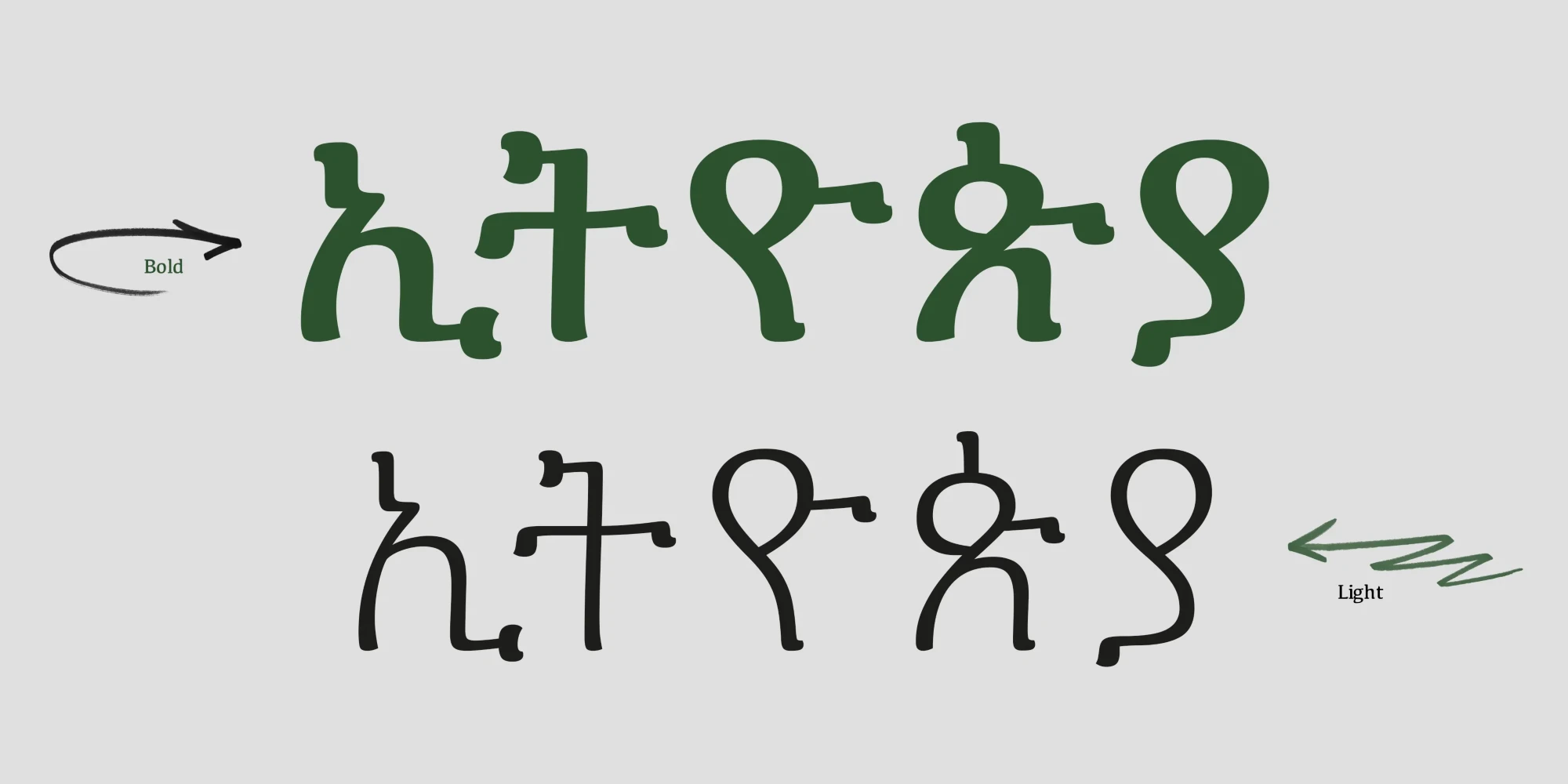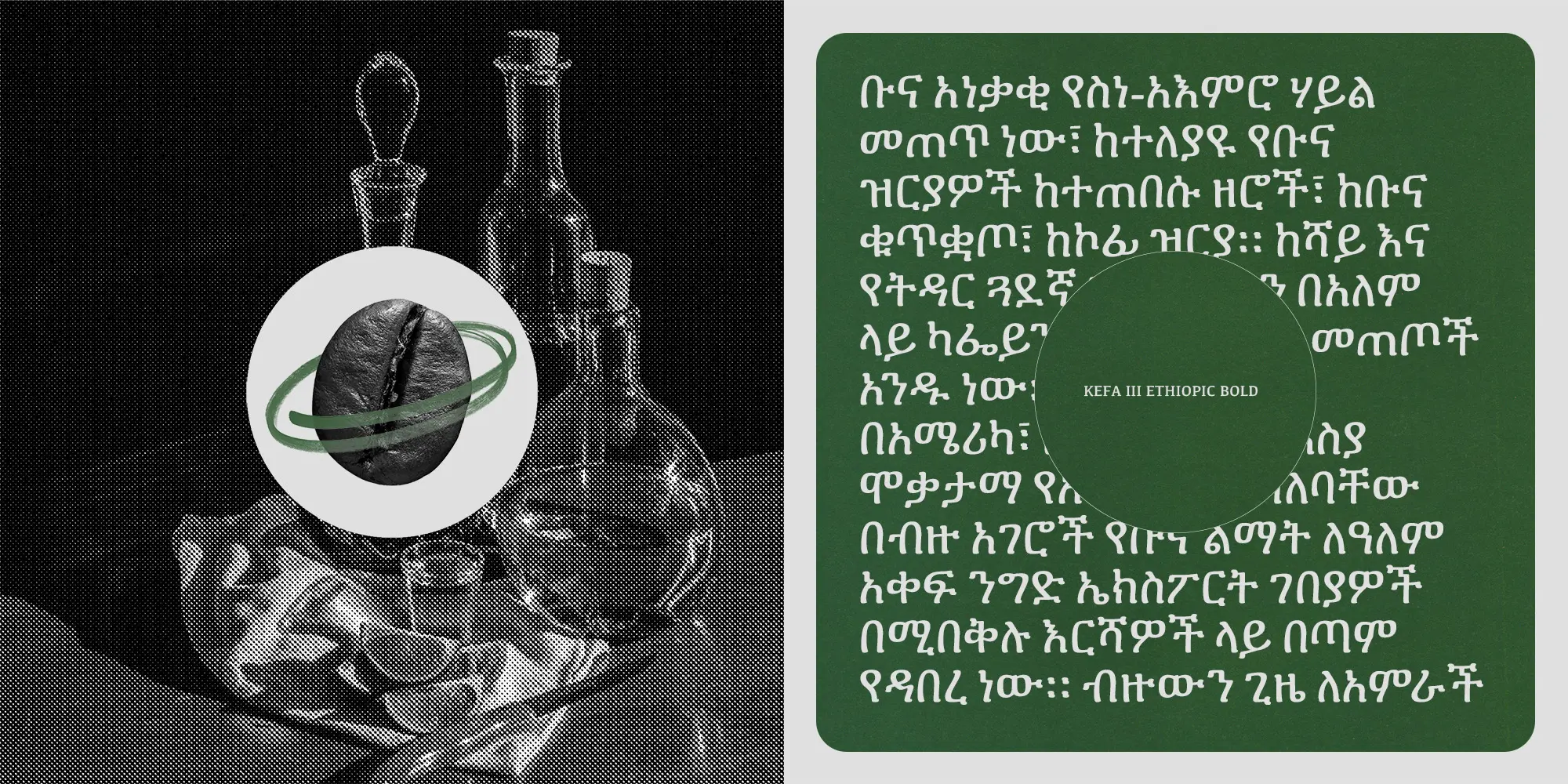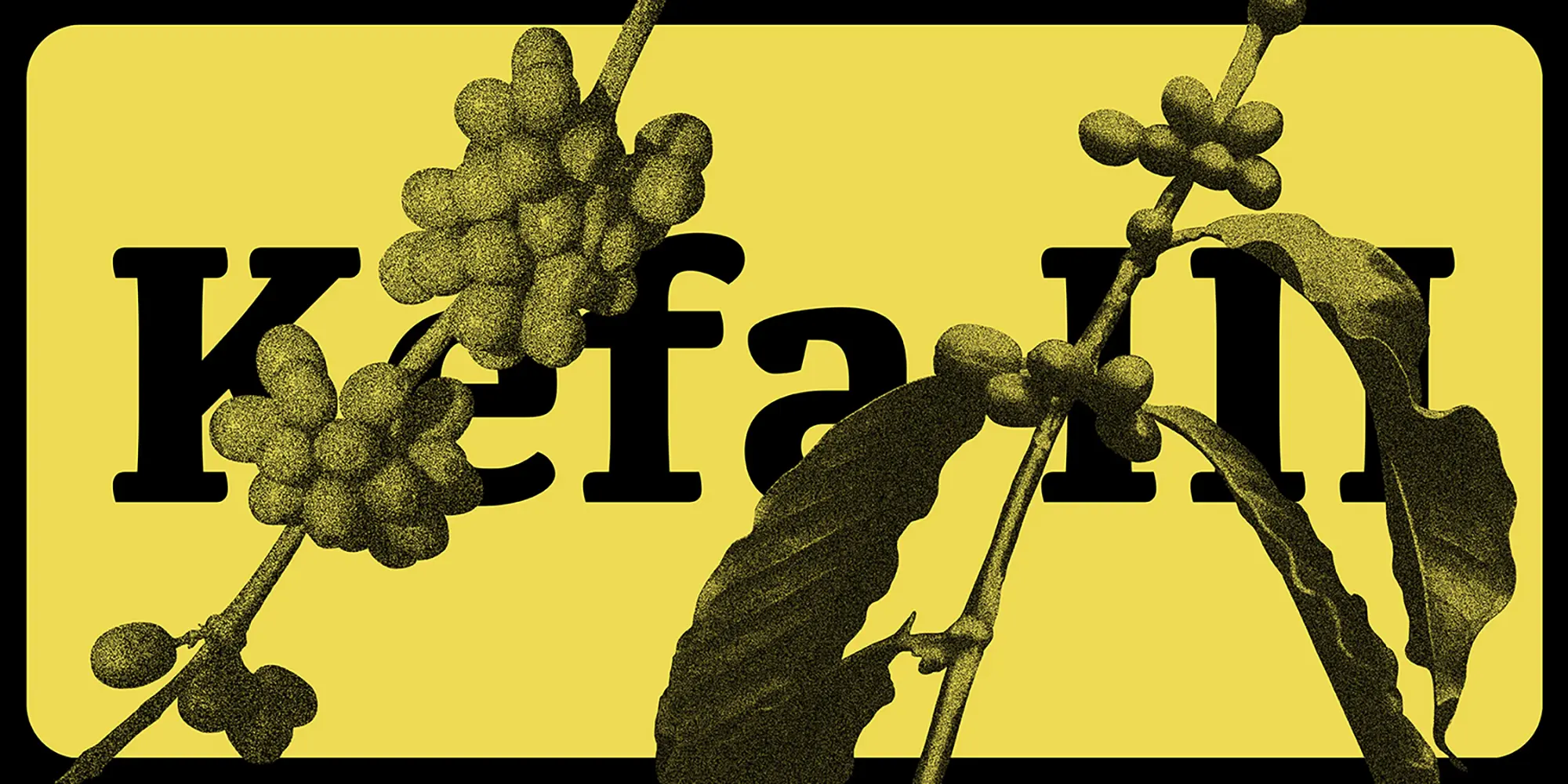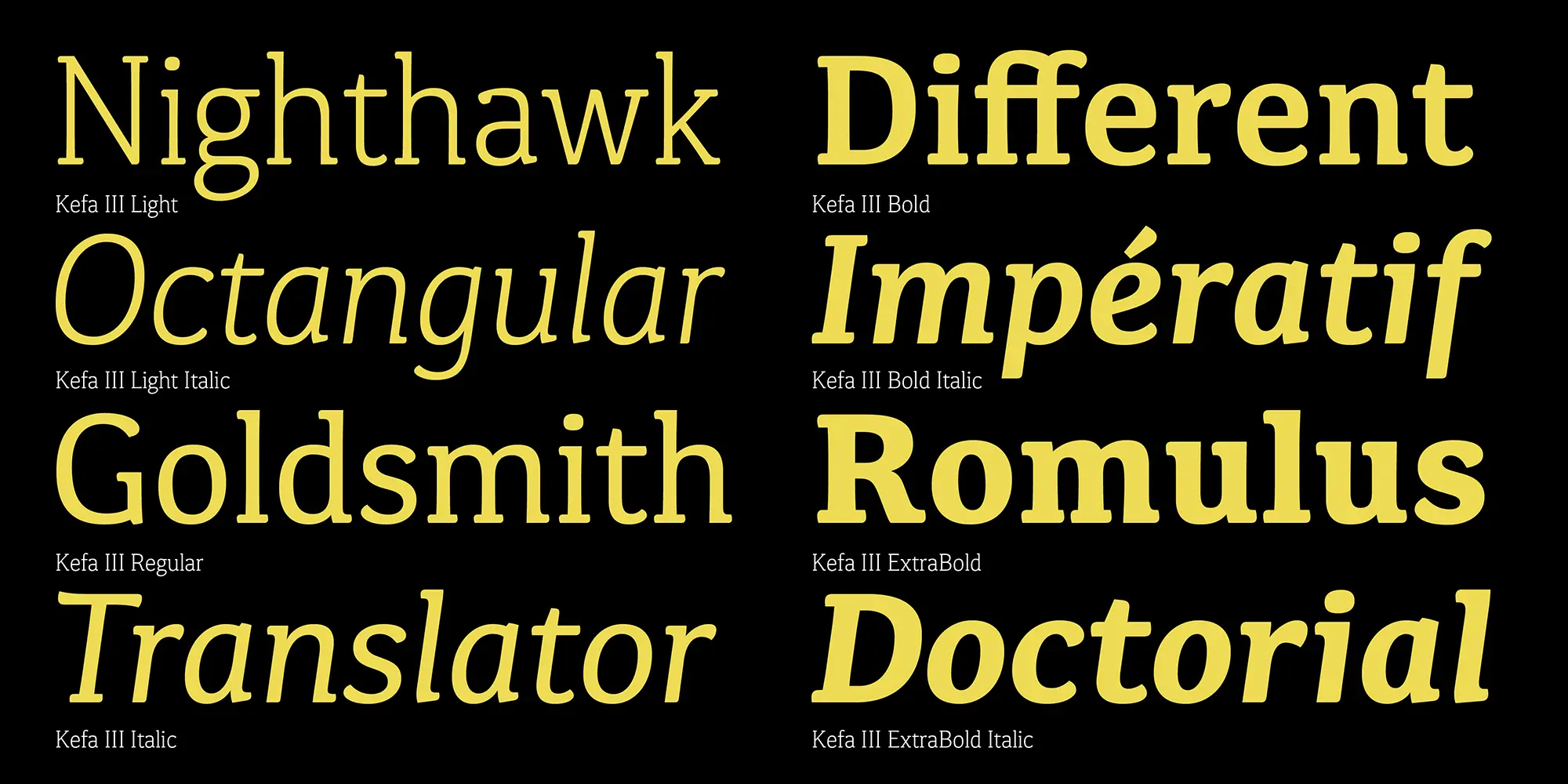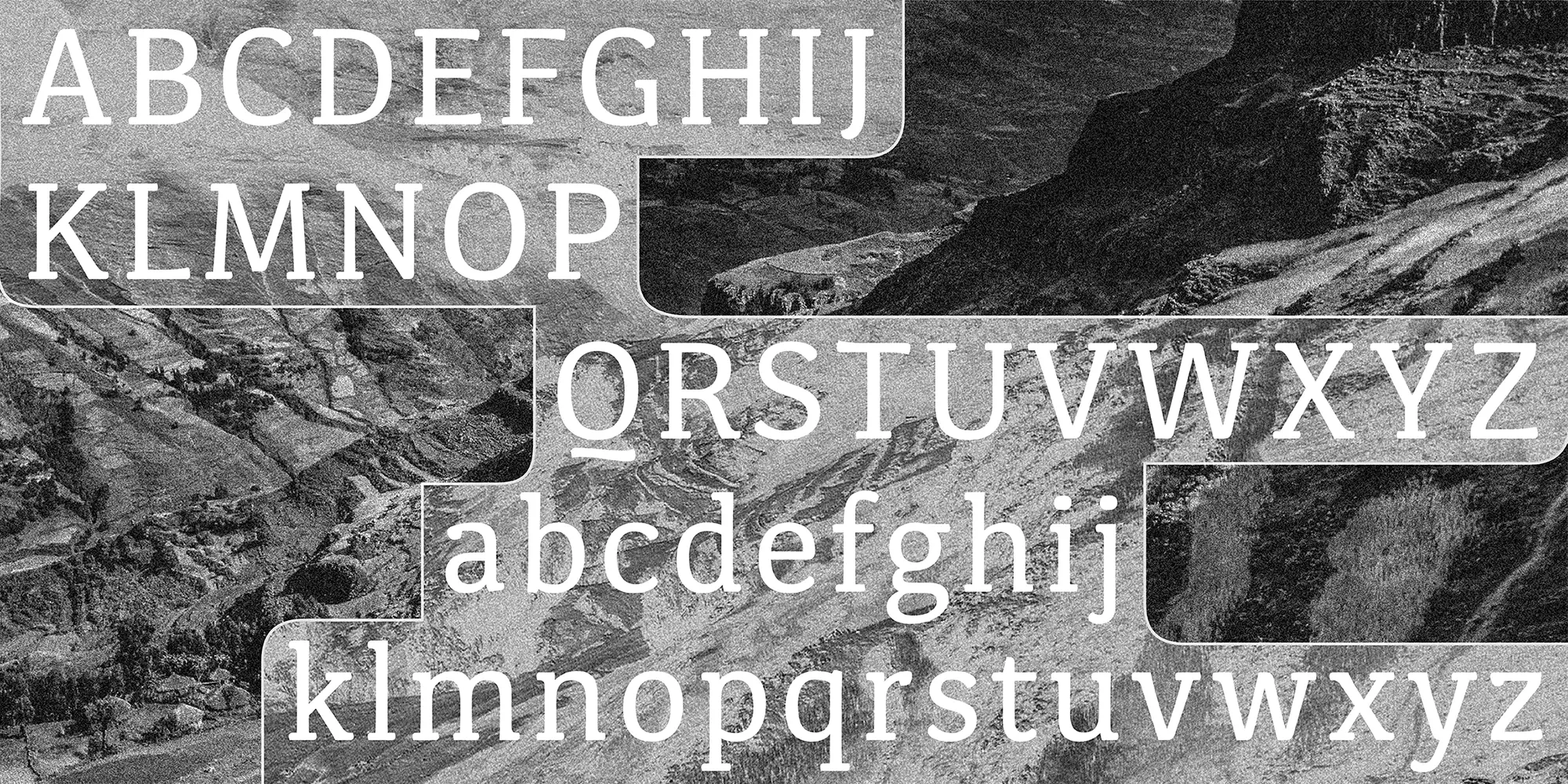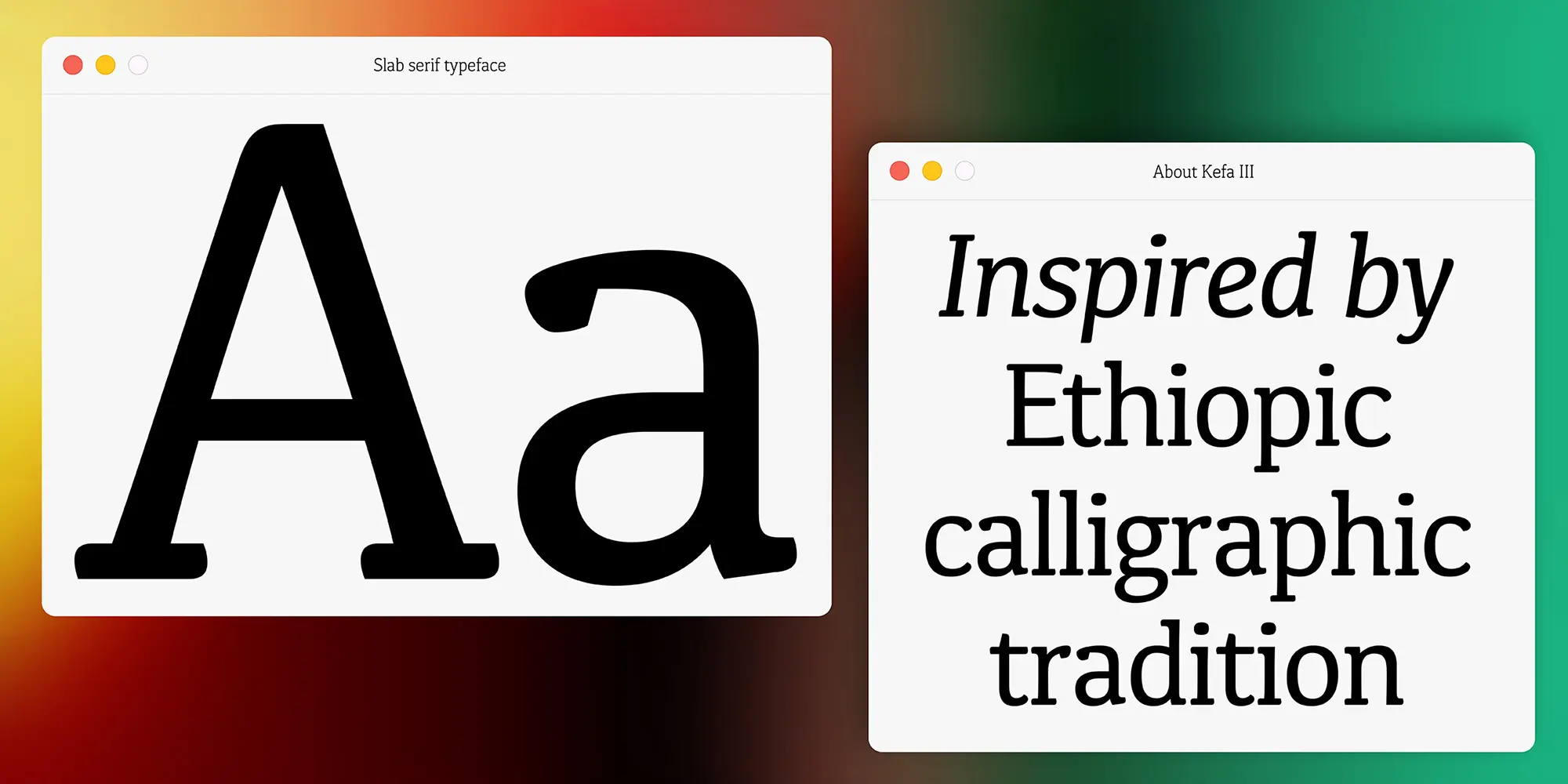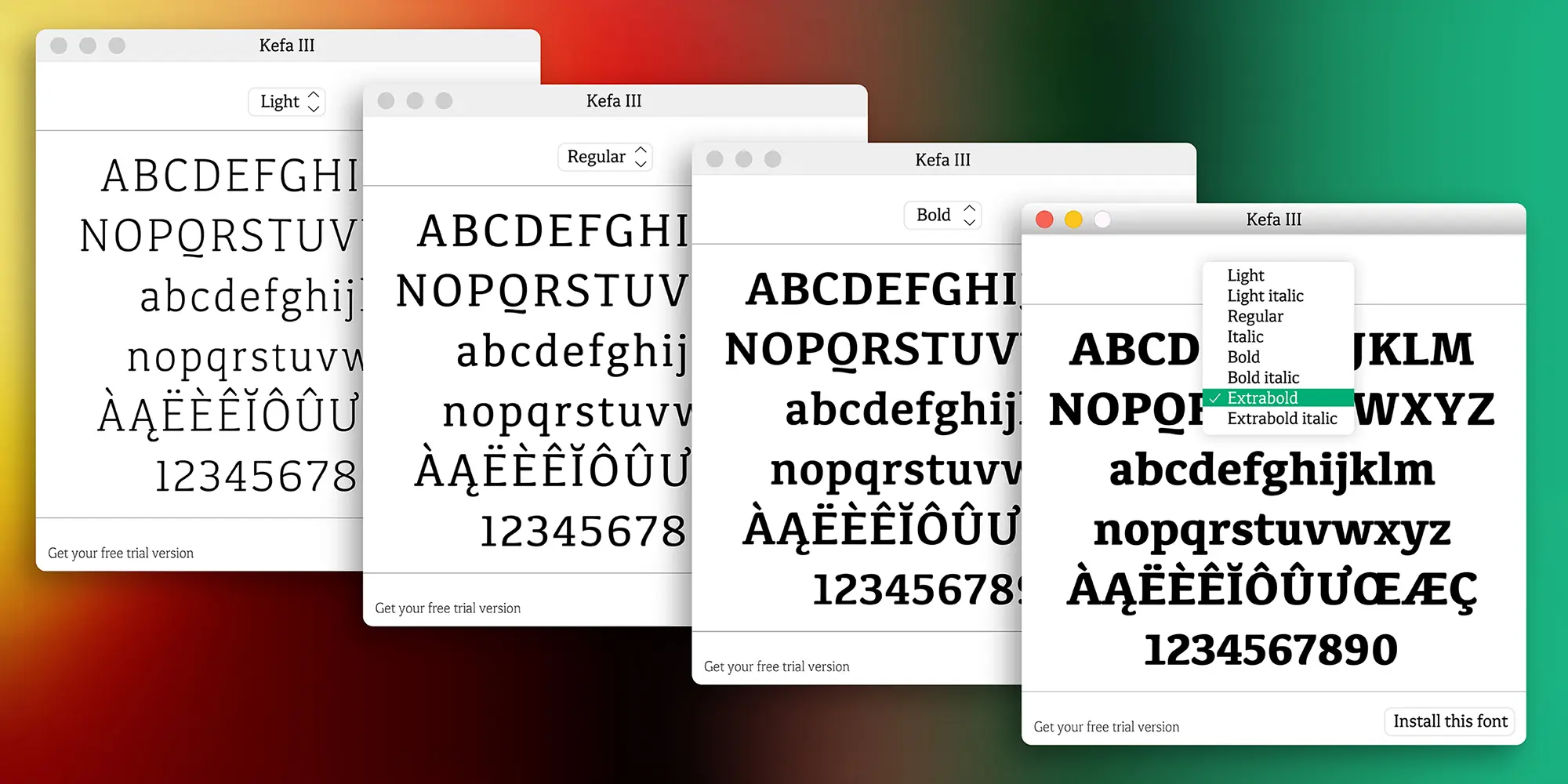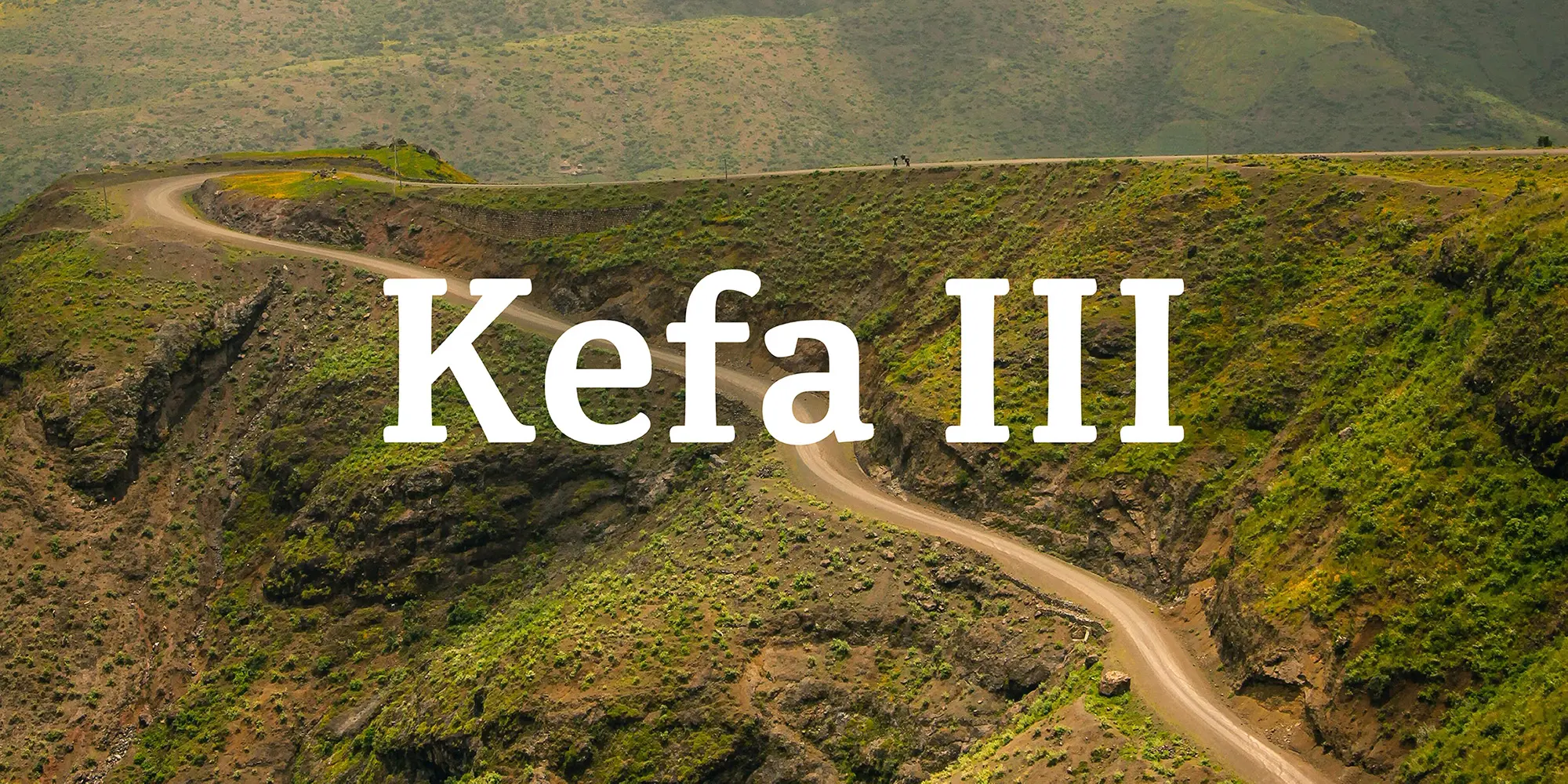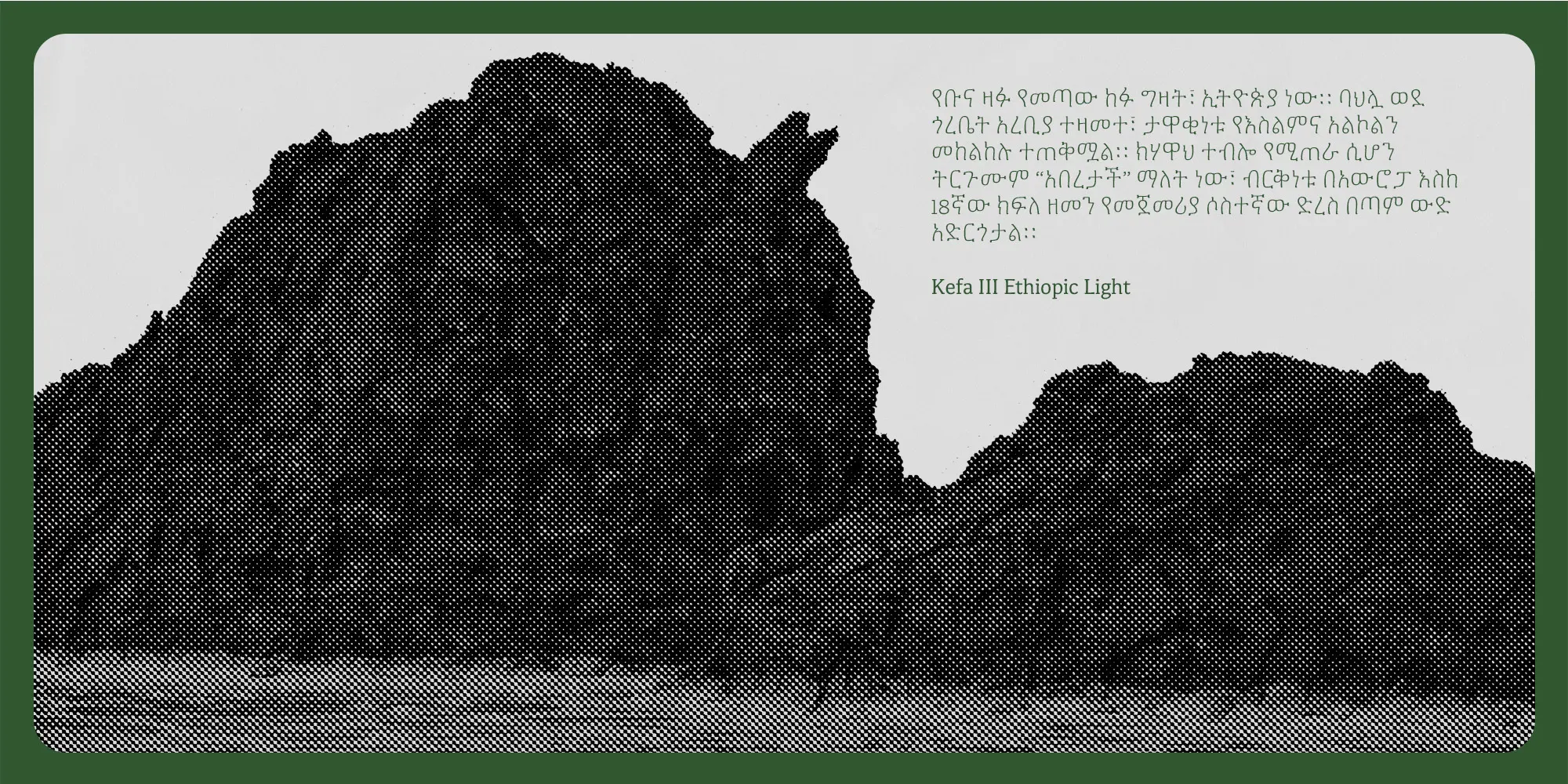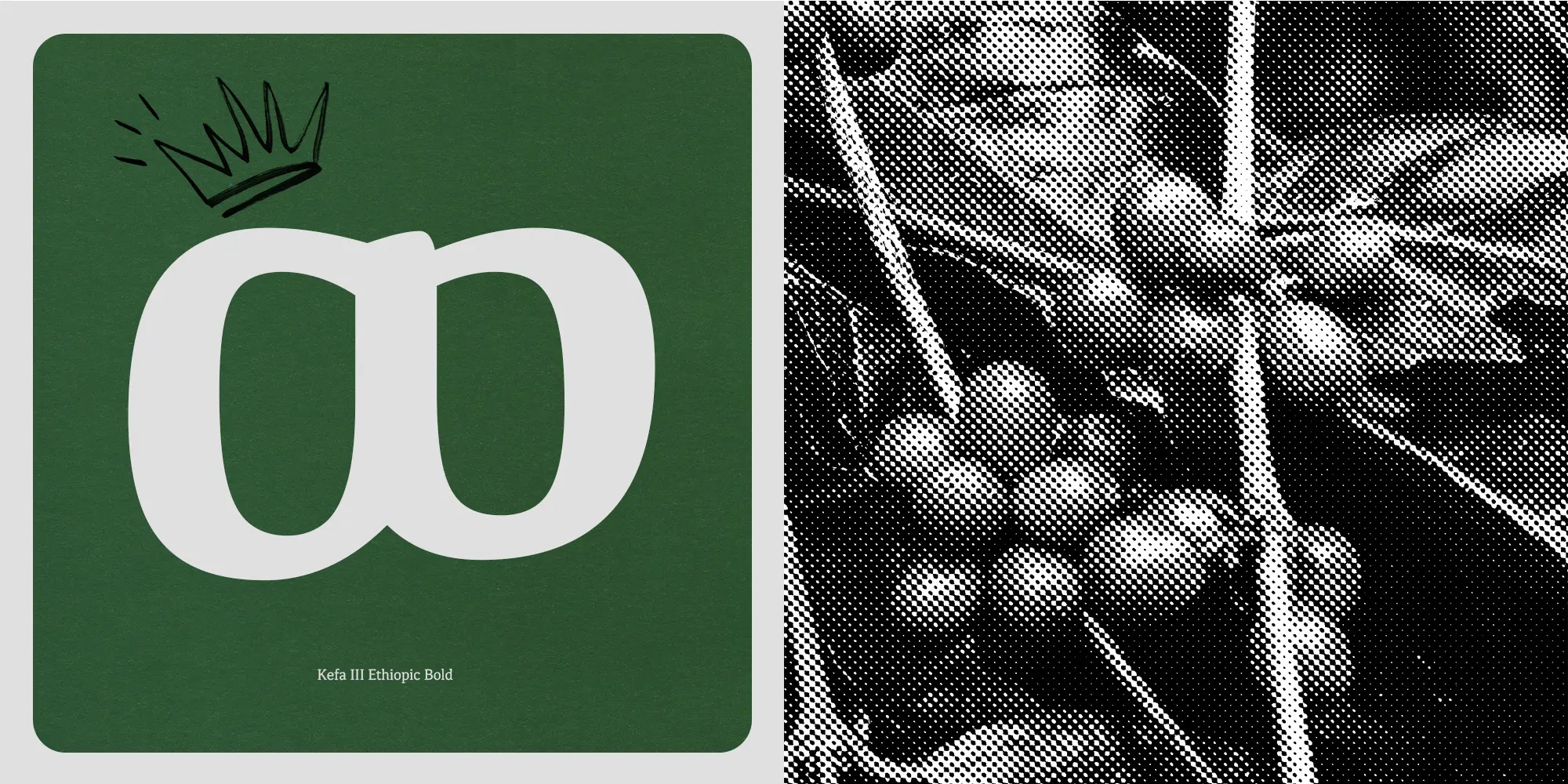
Kefa III Fonts
Kefa III is an elegantly modern blend of slab serif origins with Latin calligraphic tradition and Ethiopic heritage. Crisp curves, a tall x-height, and narrow proportions ensure clarity in dense text and display typography. A third version of the Apple System font, it has been updated to Black[Foundry]’s standard glyph set, which includes Vietnamese, currencies, fractions, arrows, and case-sensitive punctuation. Available in four weights with italics and as a variable font for precise customization.
Ligatures
Stylistic Set 1
Fractions
Oldstyle Figures
Tabular Figures
Ordinals
Scientific Inferiors
Superscript
Subscript
Numerators
Denominators
Case-Sensitive Forms